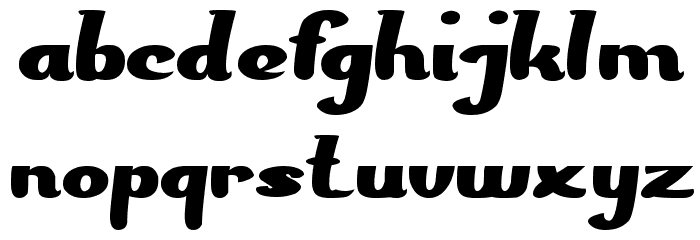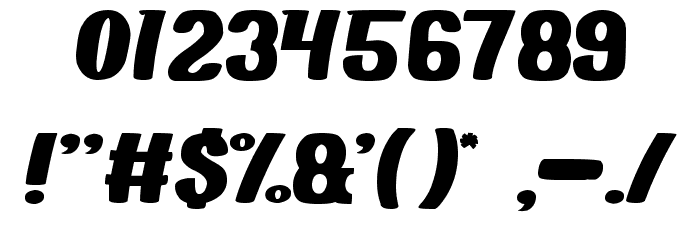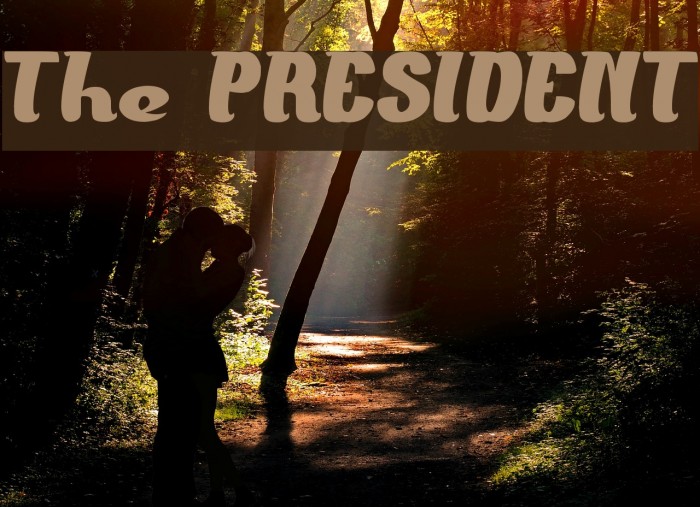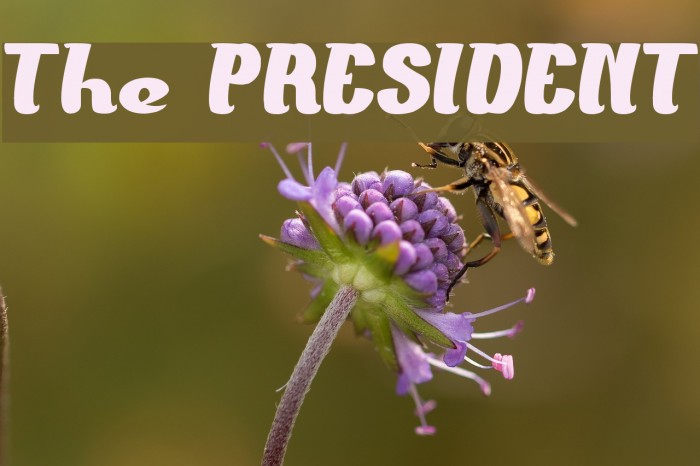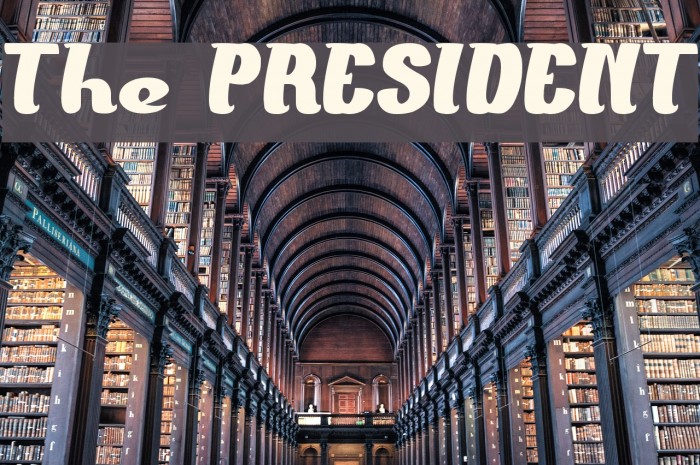
The PRESIDENT Font
This font features a bold and playful design with rounded edges and a slightly whimsical style. The uppercase letters are robust and have a strong presence, while the lowercase letters maintain a consistent flow with a touch of elegance. The numbers are equally bold, ensuring readability and impact. Special characters are designed to complement the overall style, adding a cohesive look to any text. This font's unique character makes it suitable for a variety of creative projects.
A bold, playful font with rounded edges and a whimsical style.
- Proposed Projects: Ideal for children's books, playful branding, posters, and creative advertising.
- Overall Style: Playful, Decorative